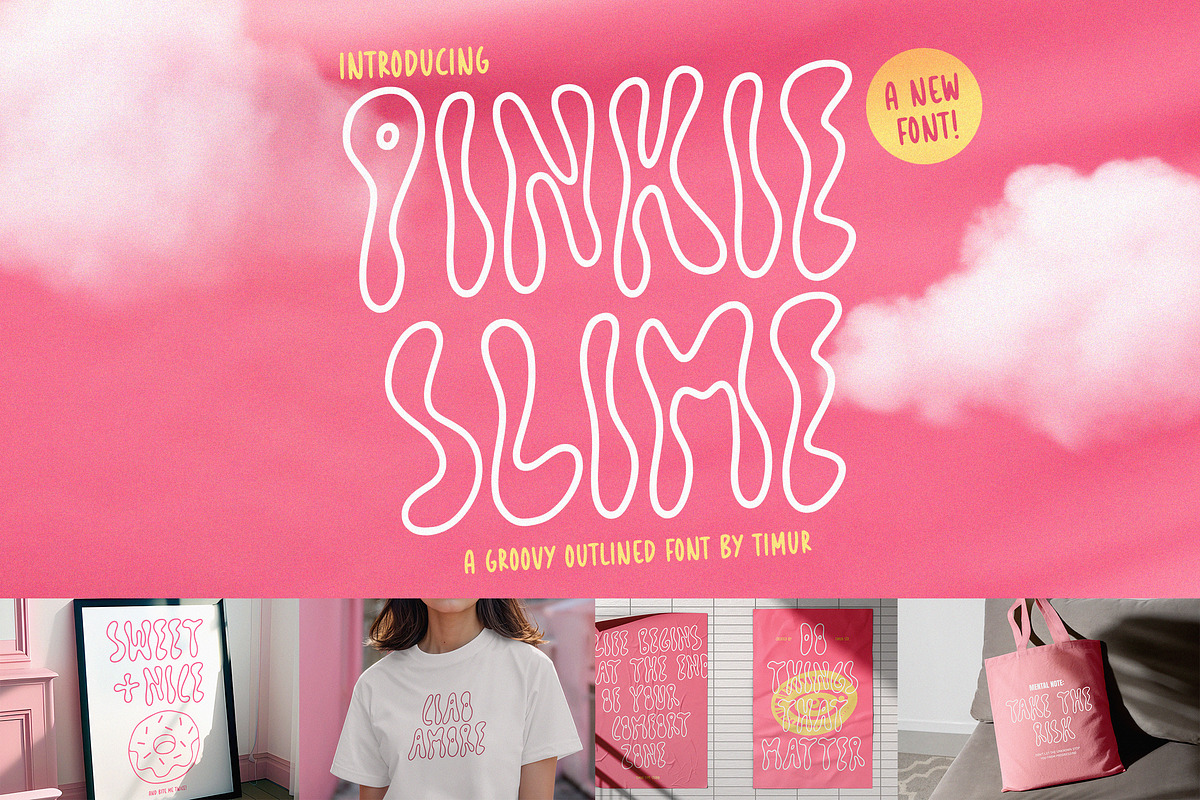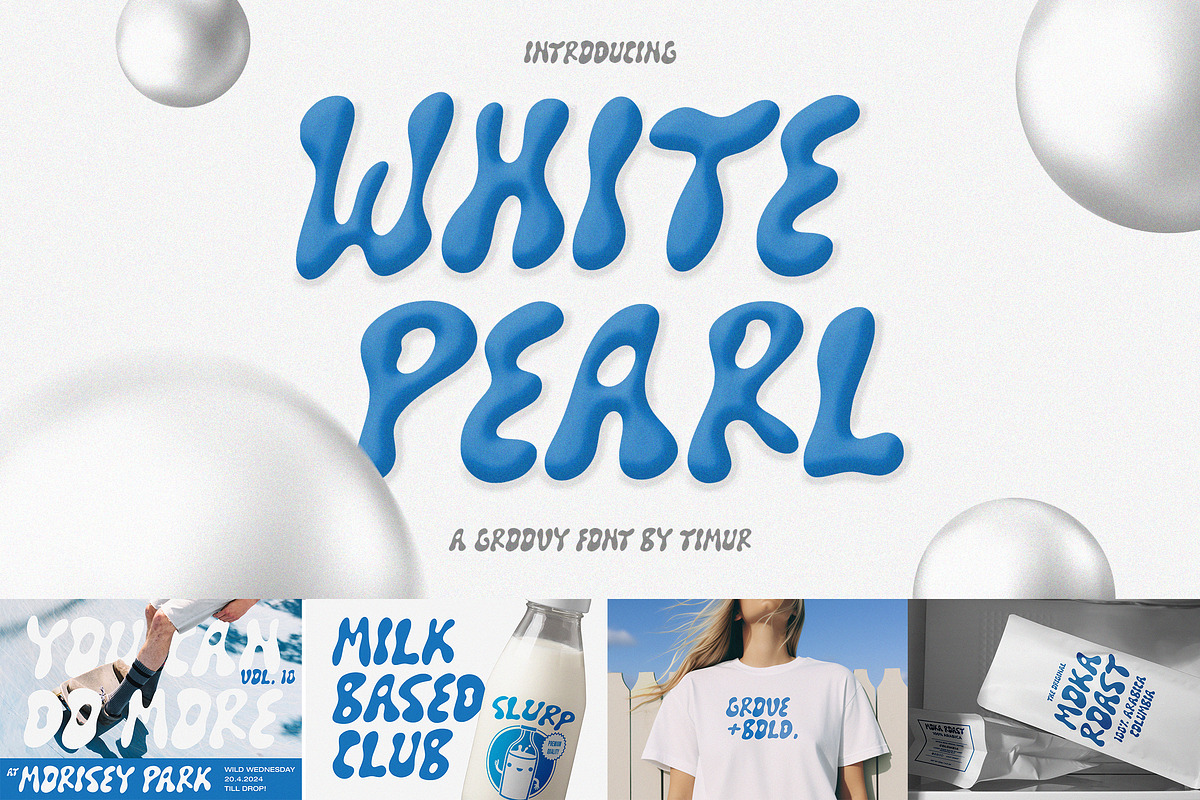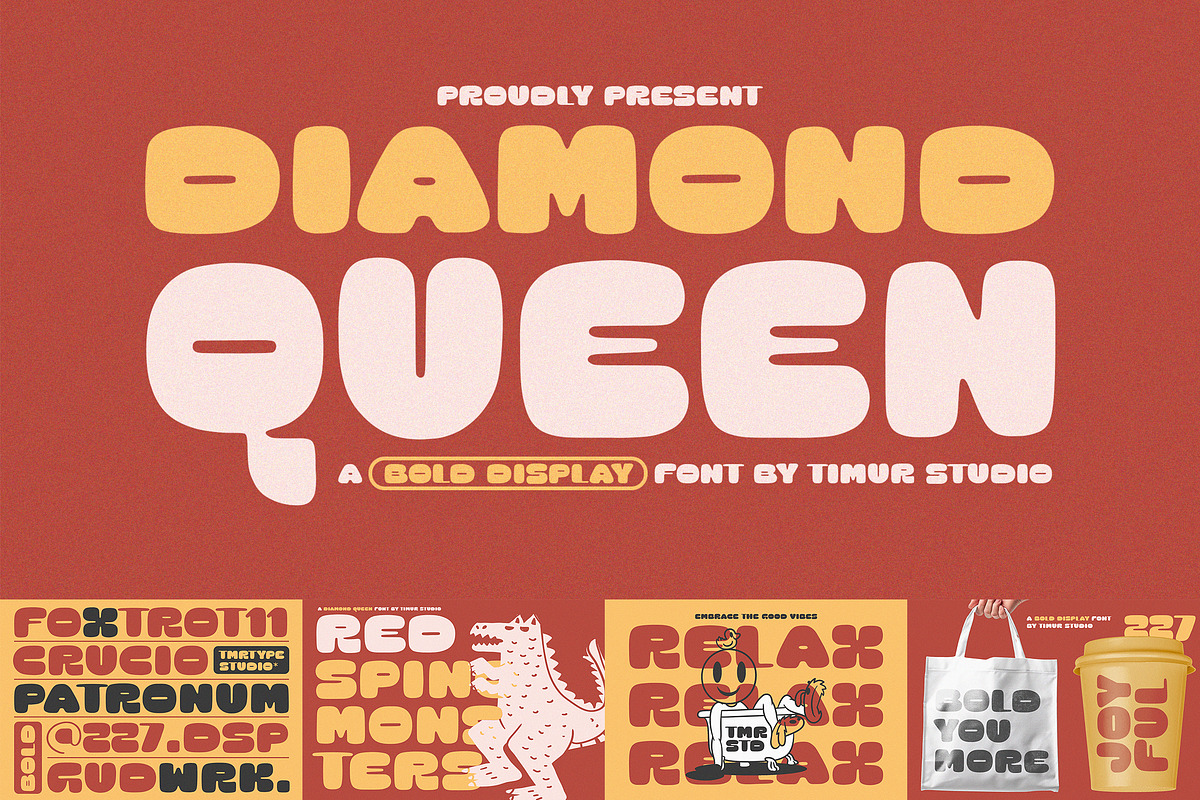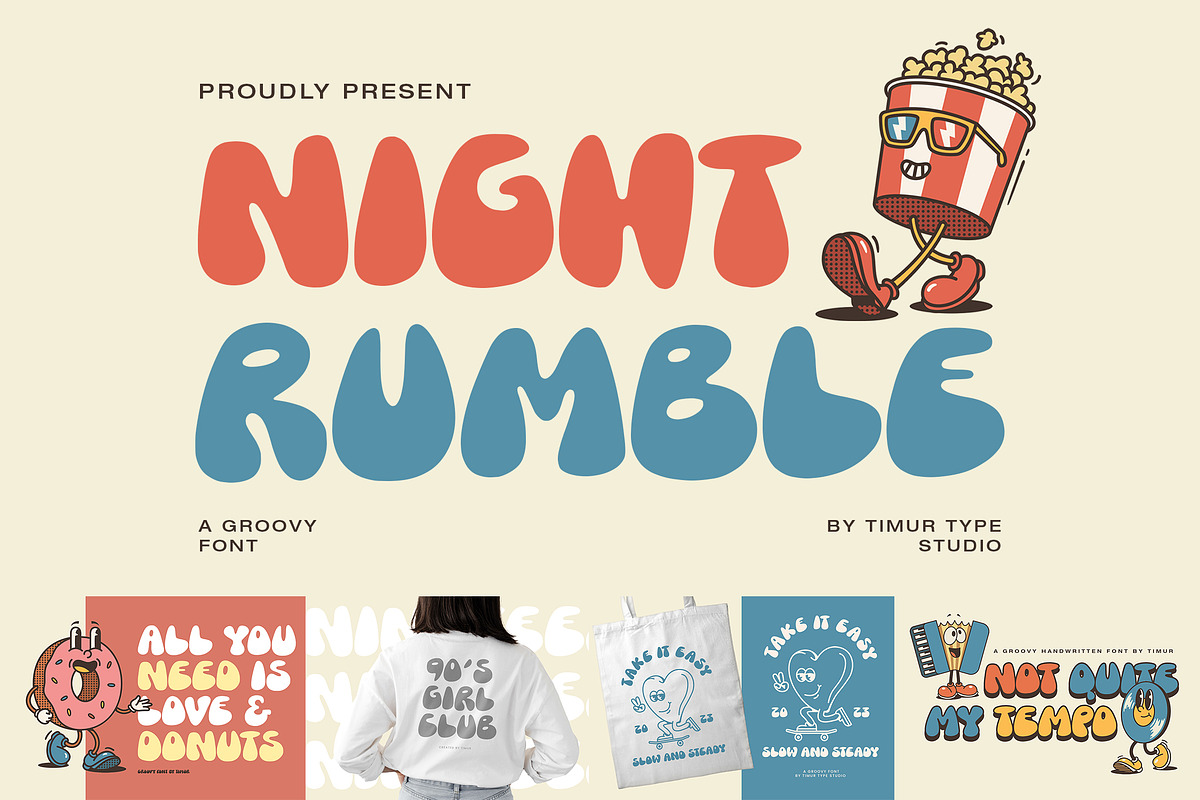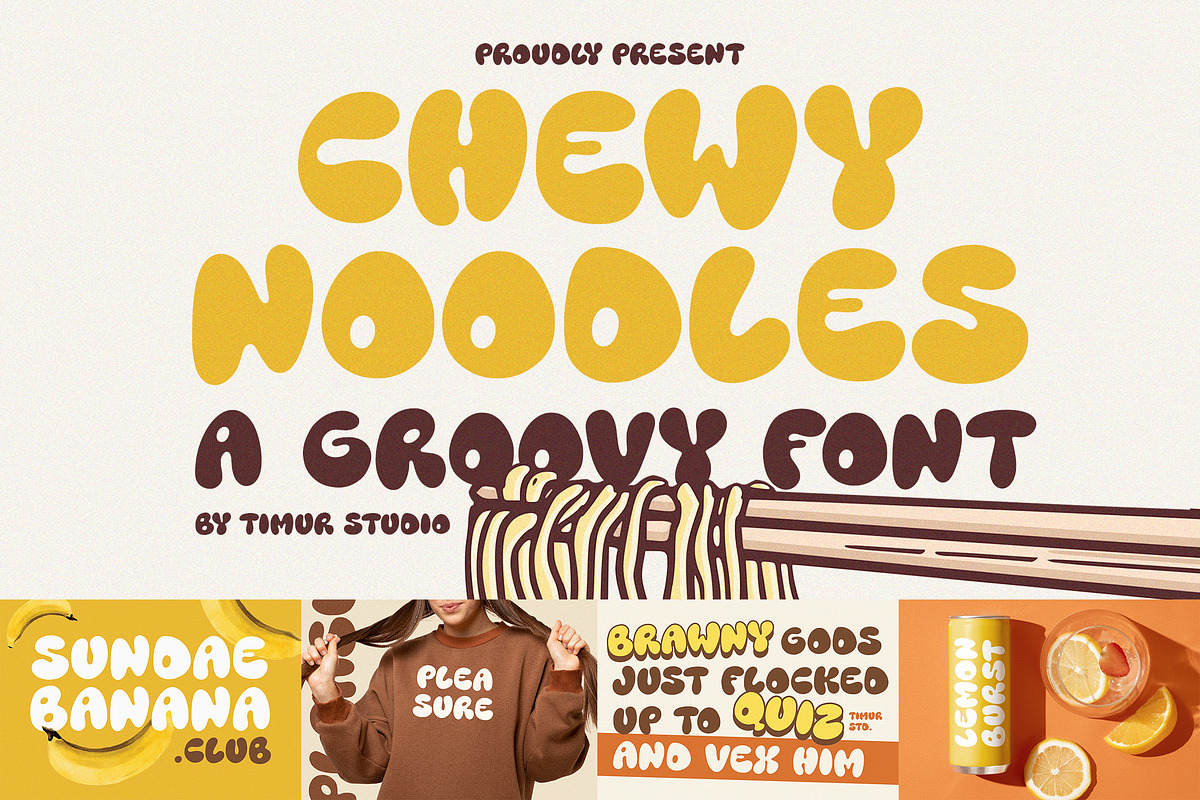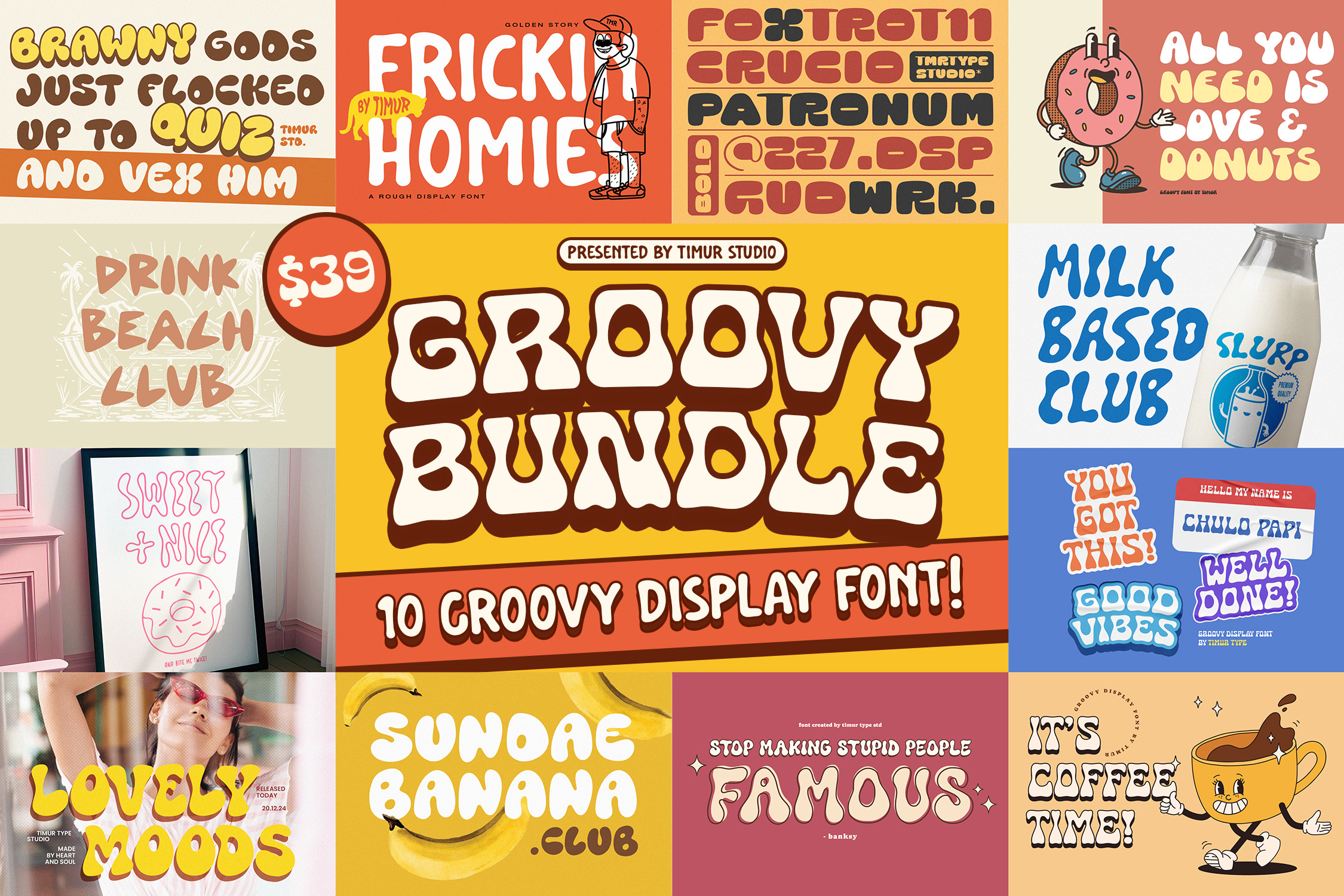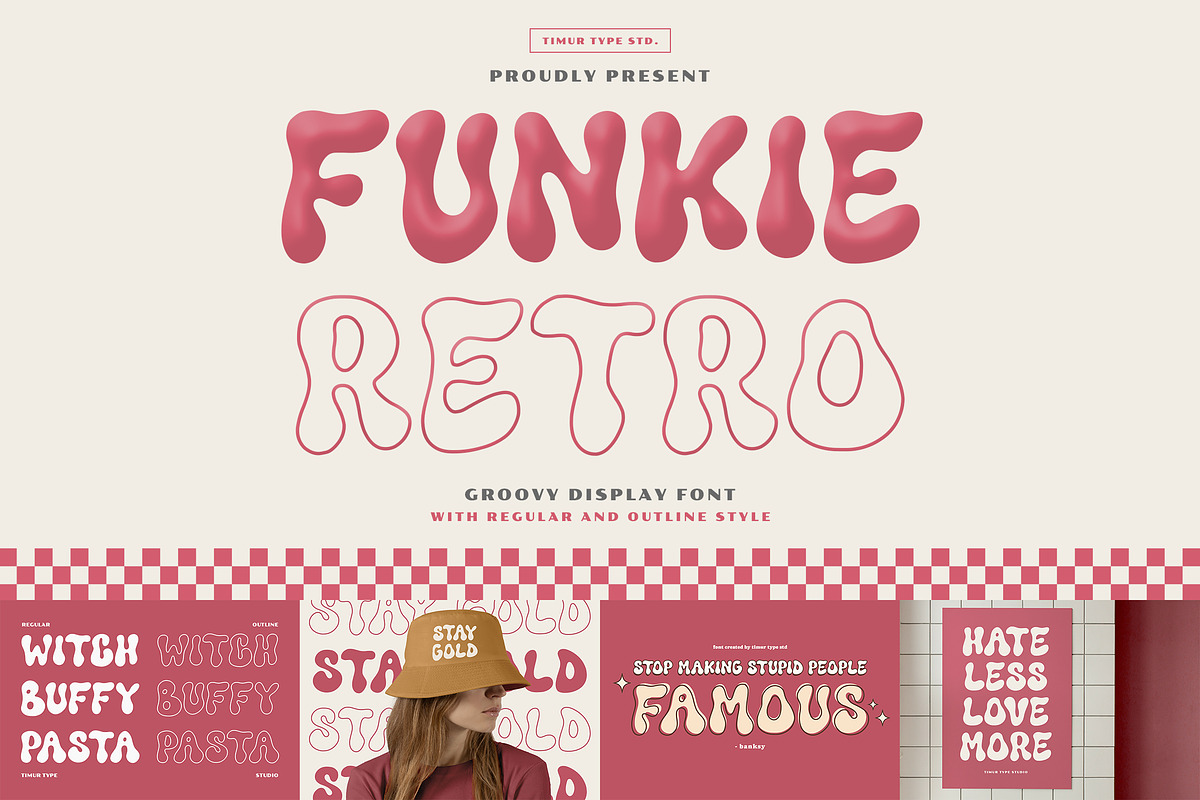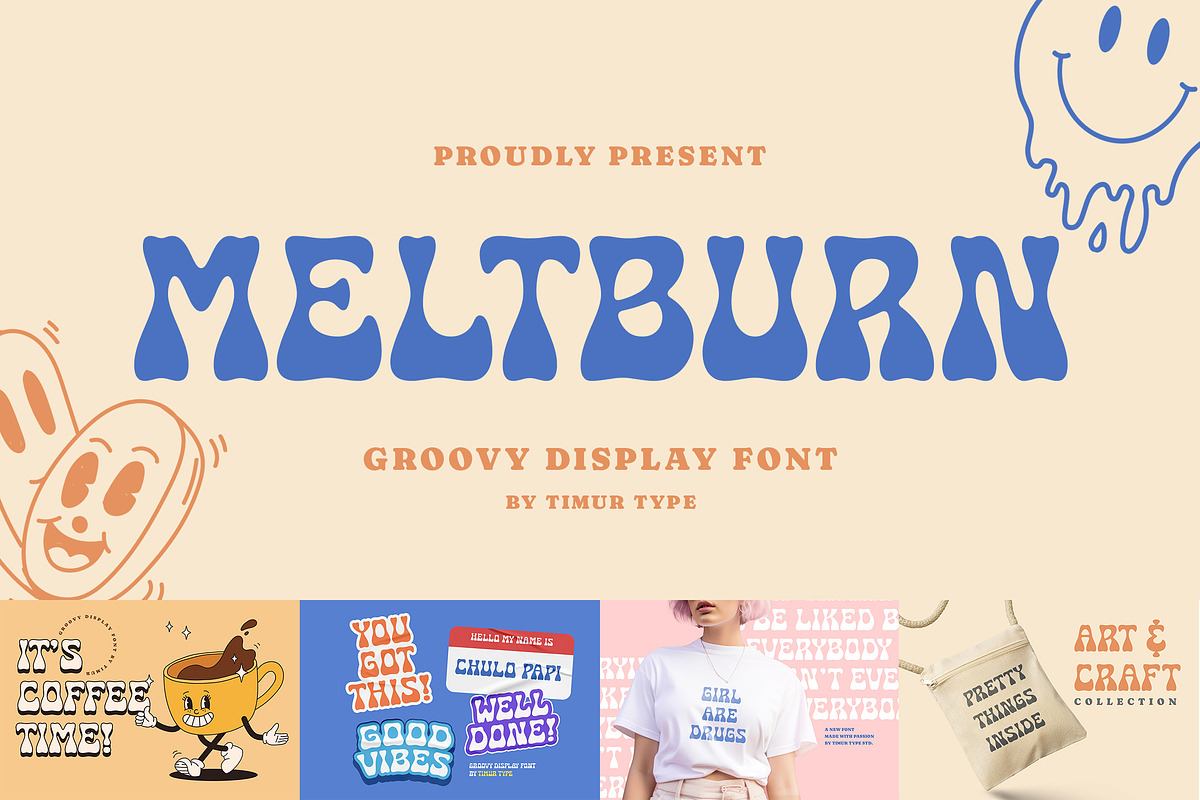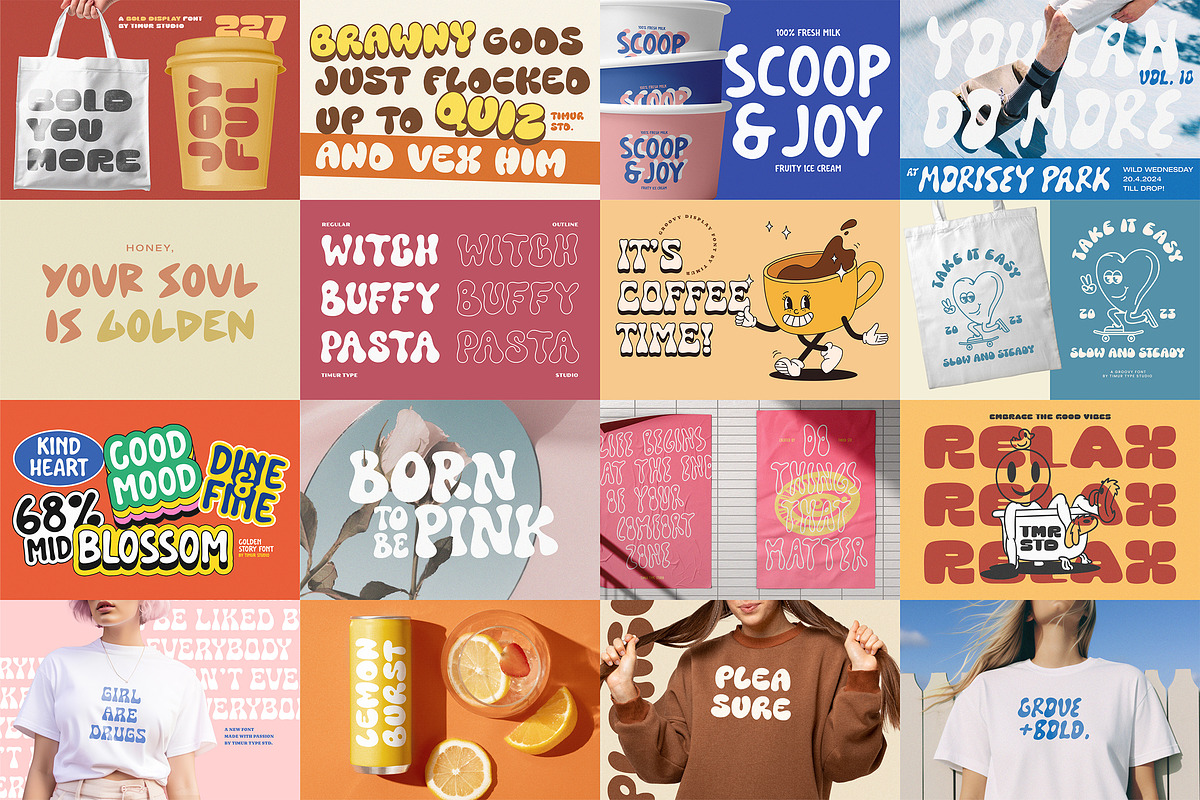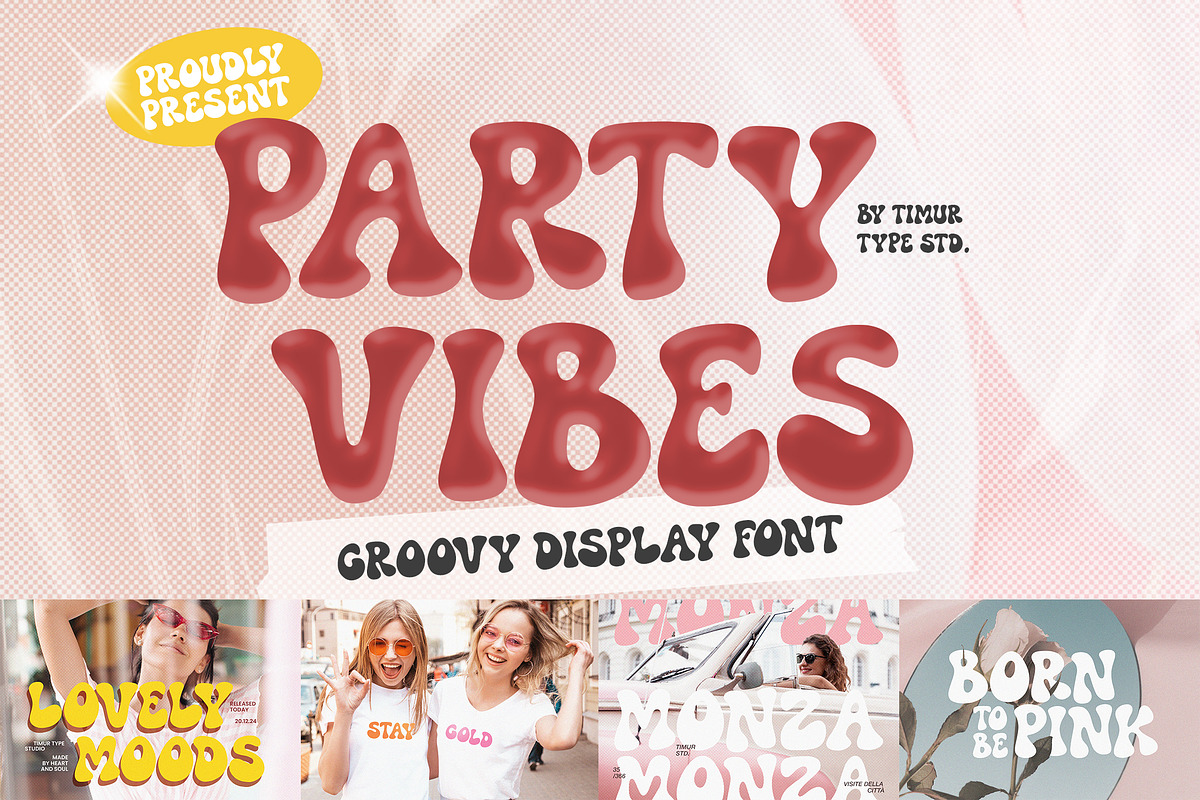
Groovy Display Font Bundle
10 GROOVY DISPLAY FONT BUNDLE!
This amazing collection features 10 one-of-a-kind fonts that are guaranteed to take your designs to a whole new level.
Our bundle includes a best of groovy and eye-catching display fonts that are perfect for any creative project. Whether you’re looking to add a playful touch to your designs or make a bold statement, our fonts have got you covered. With our bundle, you’ll have access to a wide range of styles and designs, all with a friendly and approachable feel.